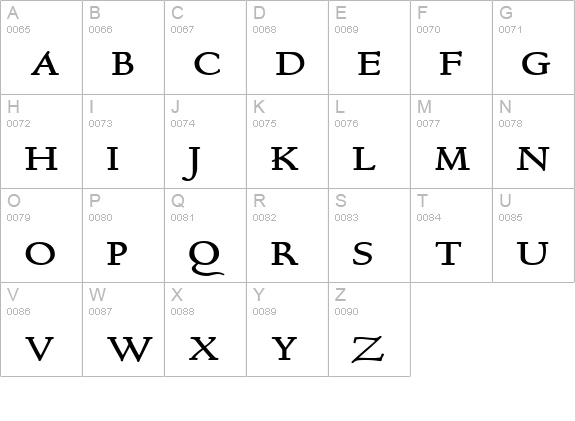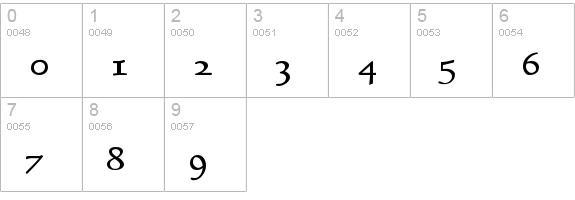
Bravo-Extended Bold Font Details
Bravo-Extended Bold is a strong, high-contrast, extended-width variant in the Bravo typeface family \xE2\x80\x94 well suited to headlines, attention-grabbing titles, and strong calls-to-action.
The Bravo-Extended Bold font is a versatile and eye-catching typeface that commands attention with its bold and stylish design. Perfect for making a strong statement in your designs, this font exudes confidence and modernity. Its extended characters provide a unique and impactful look that is sure to stand out. And the best part? Bravo-Extended Bold is available for free download at FontsMarket.com, giving you access to this premium font without any cost. Whether you're working on a poster, logo, or any other design project, Bravo-Extended Bold is a fantastic choice to make your text pop and leave a lasting impression. Download it today and elevate your designs with this stunning and impactful typeface.